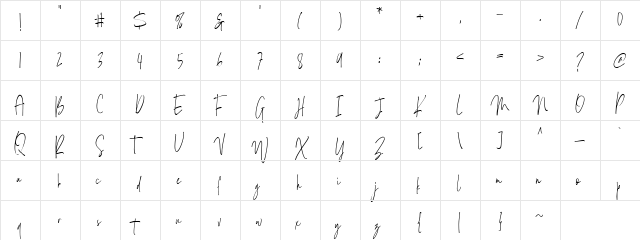
Goldenside Regular
| Foundry | Runsell Studio |
| Designer | Saeful Maarif |
Design Context for Goldenside Typeface
Goldenside is a composed and adaptable typeface that performs quietly and consistently across a wide range of design contexts.